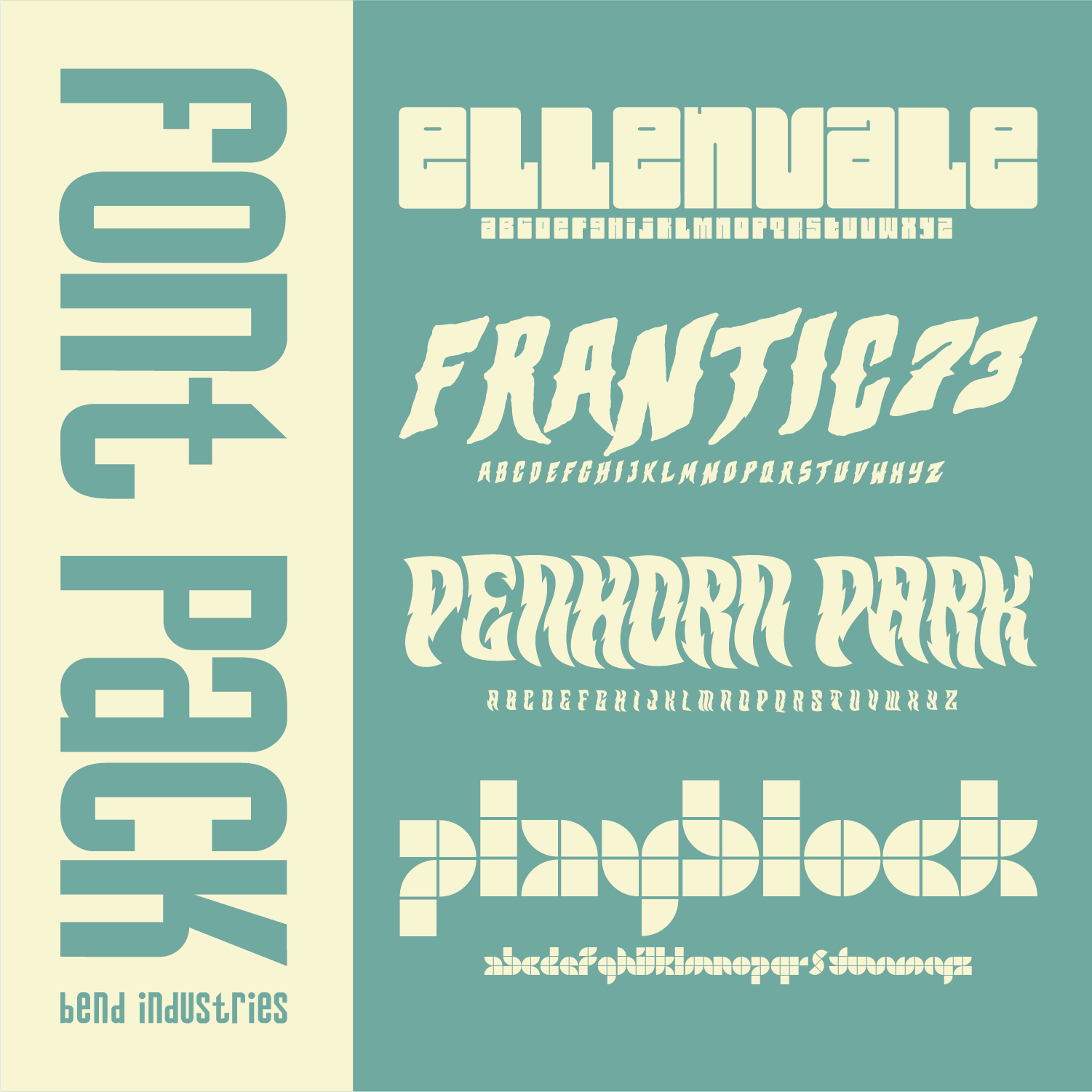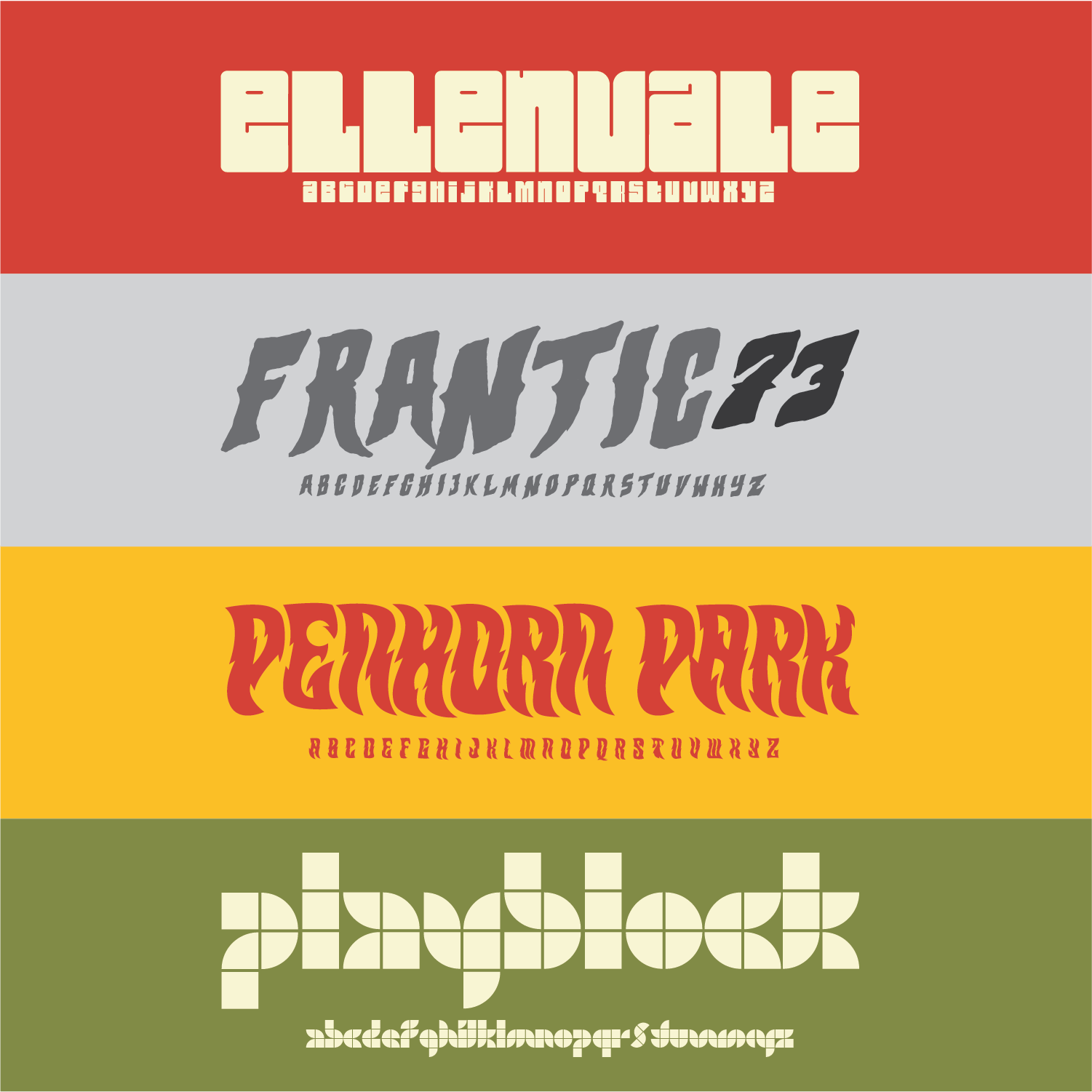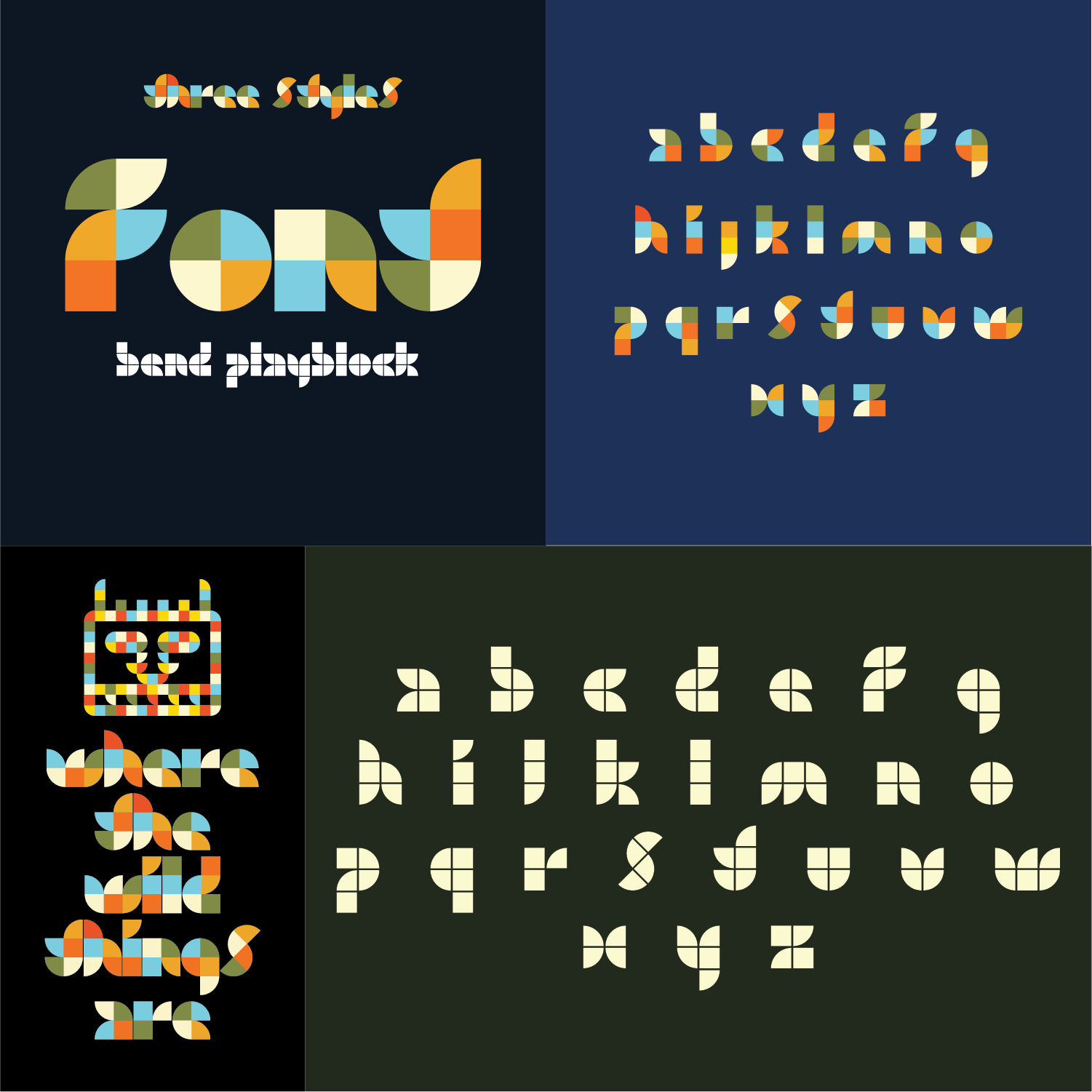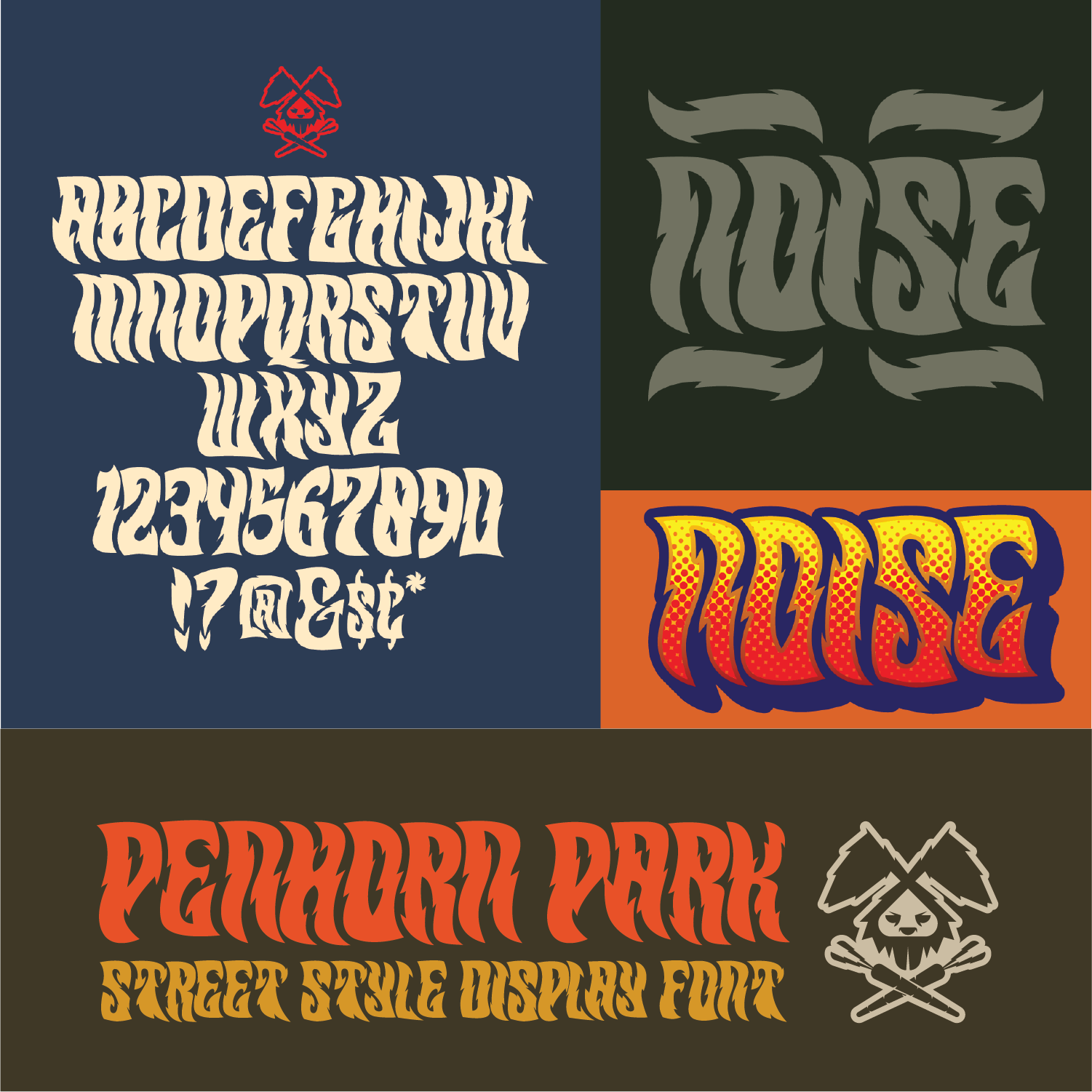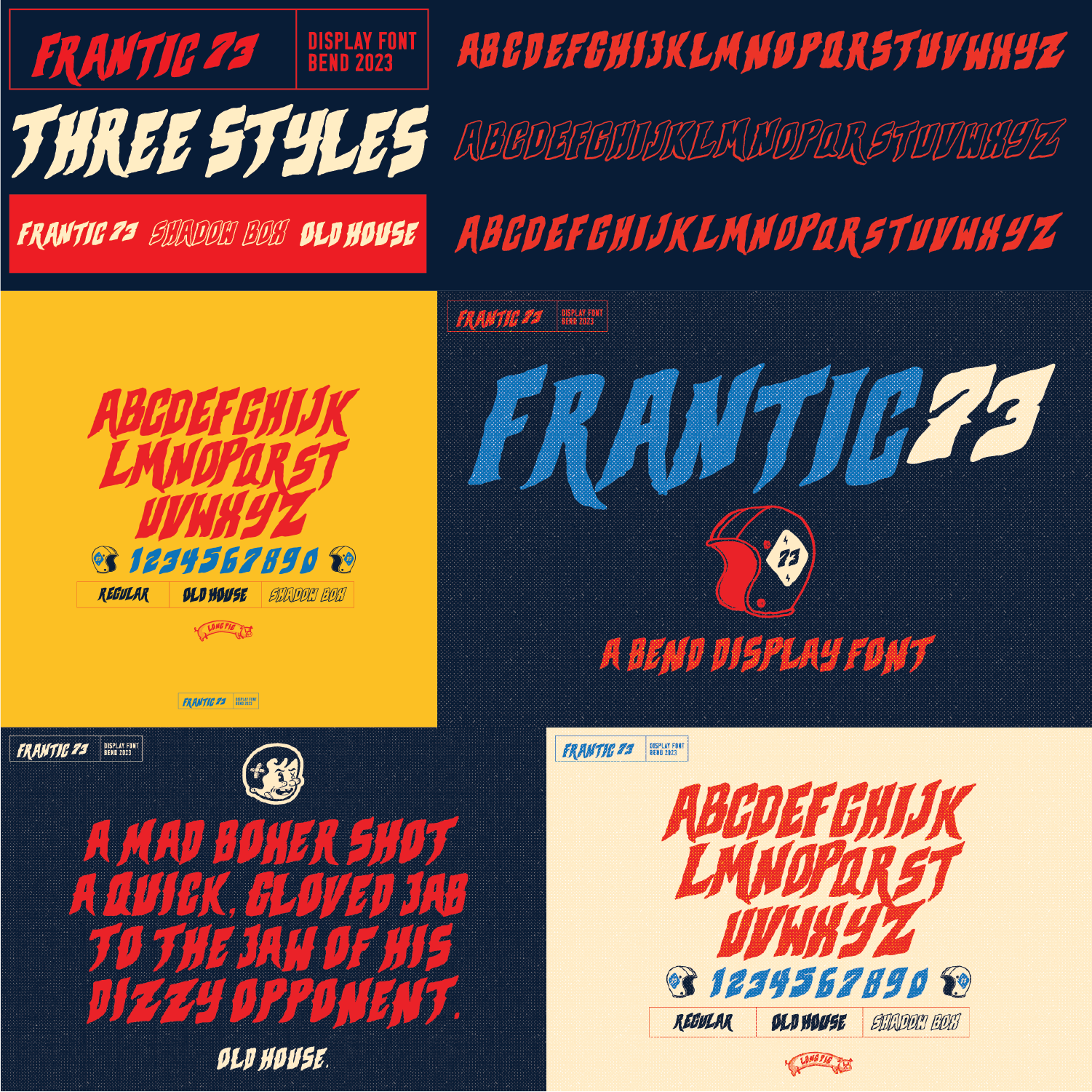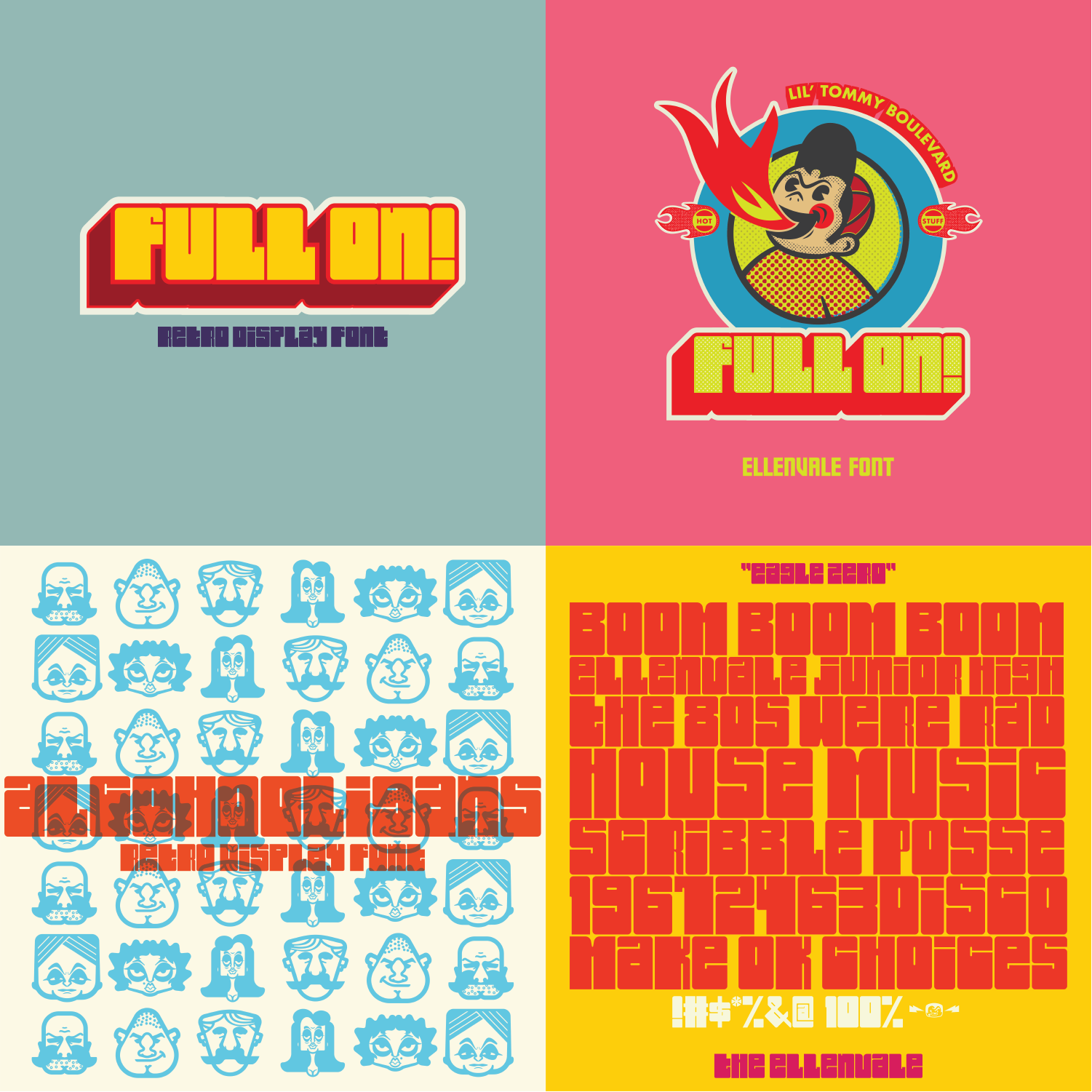
Bend Industries Font Pack 1
A curated collection of four original typefaces—Ellenvale, Playblock, Penhorn Park, and Frantic73—each crafted to bring a bold, creative edge to your next project. From playful and retro to expressive and experimental, this pack is built for designers who want their typography to stand out.
Perfect for branding, packaging, posters, and creative storytelling.